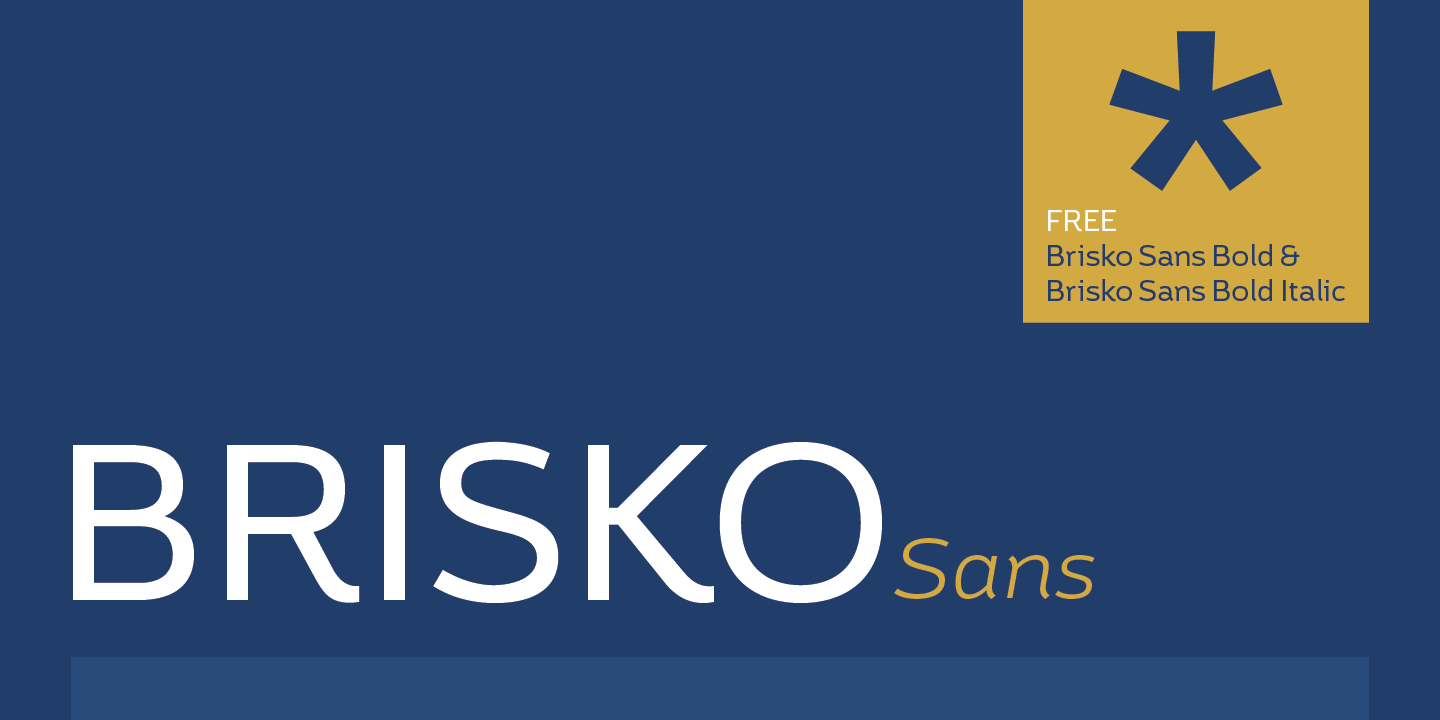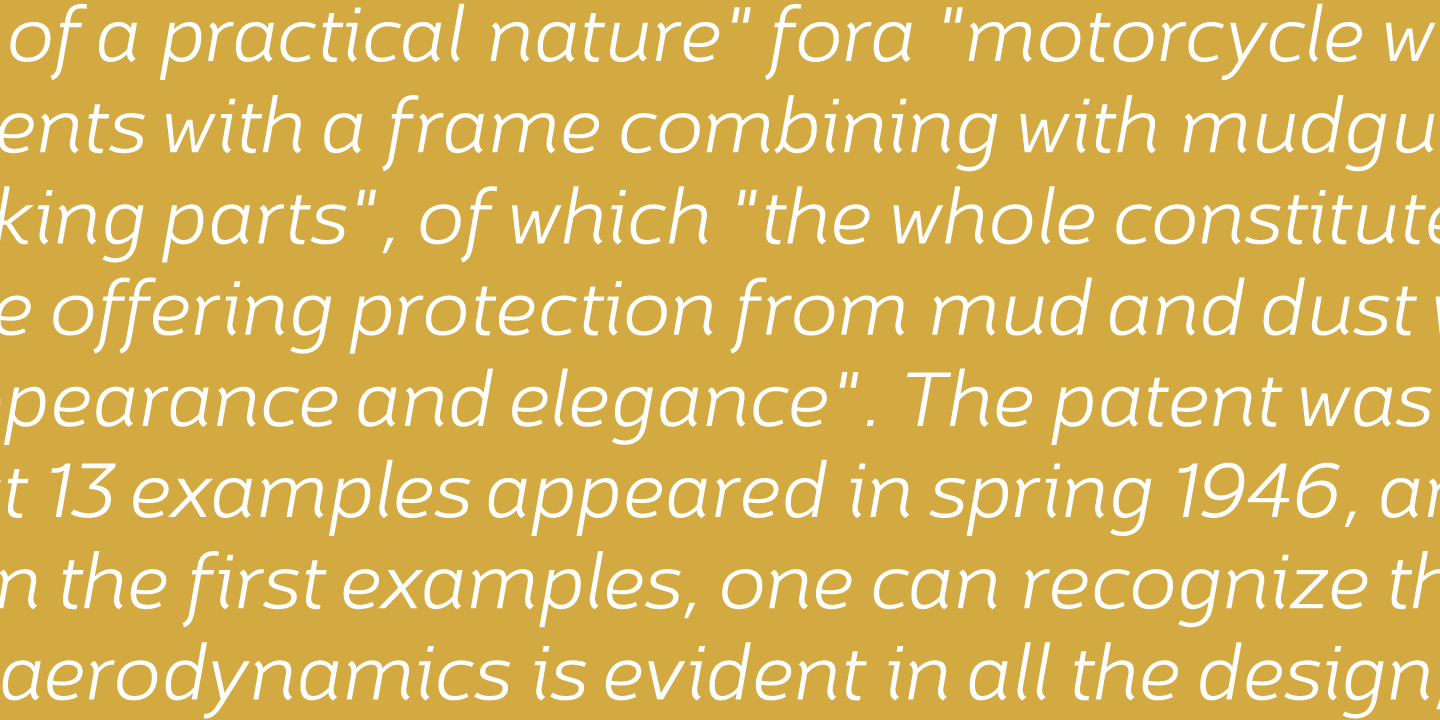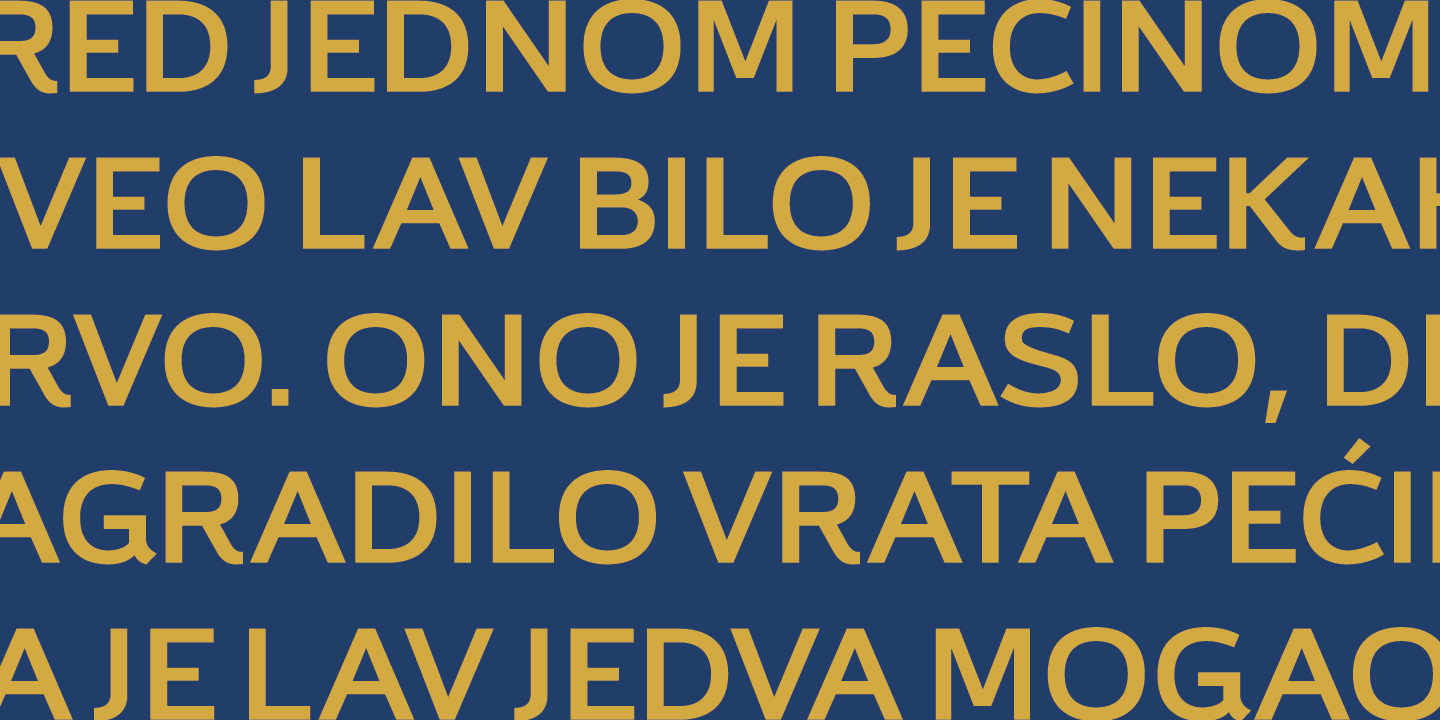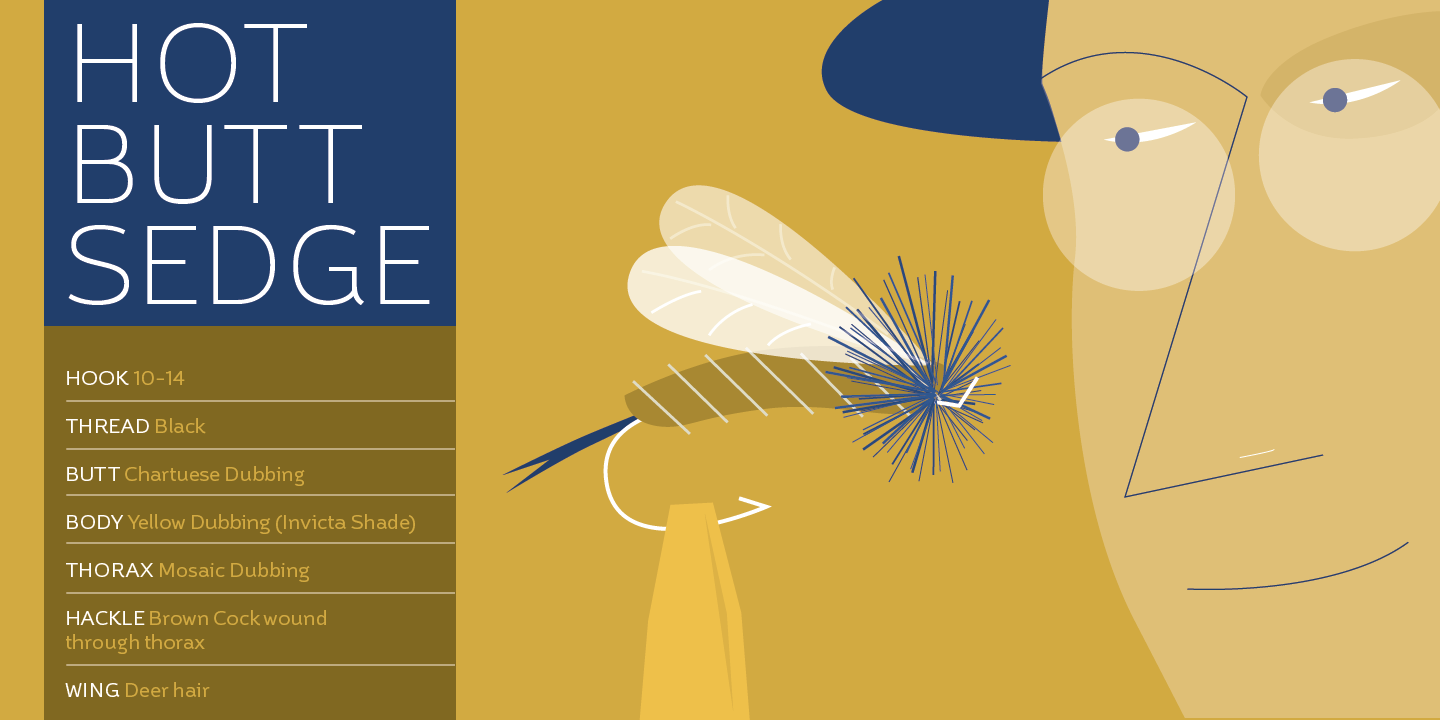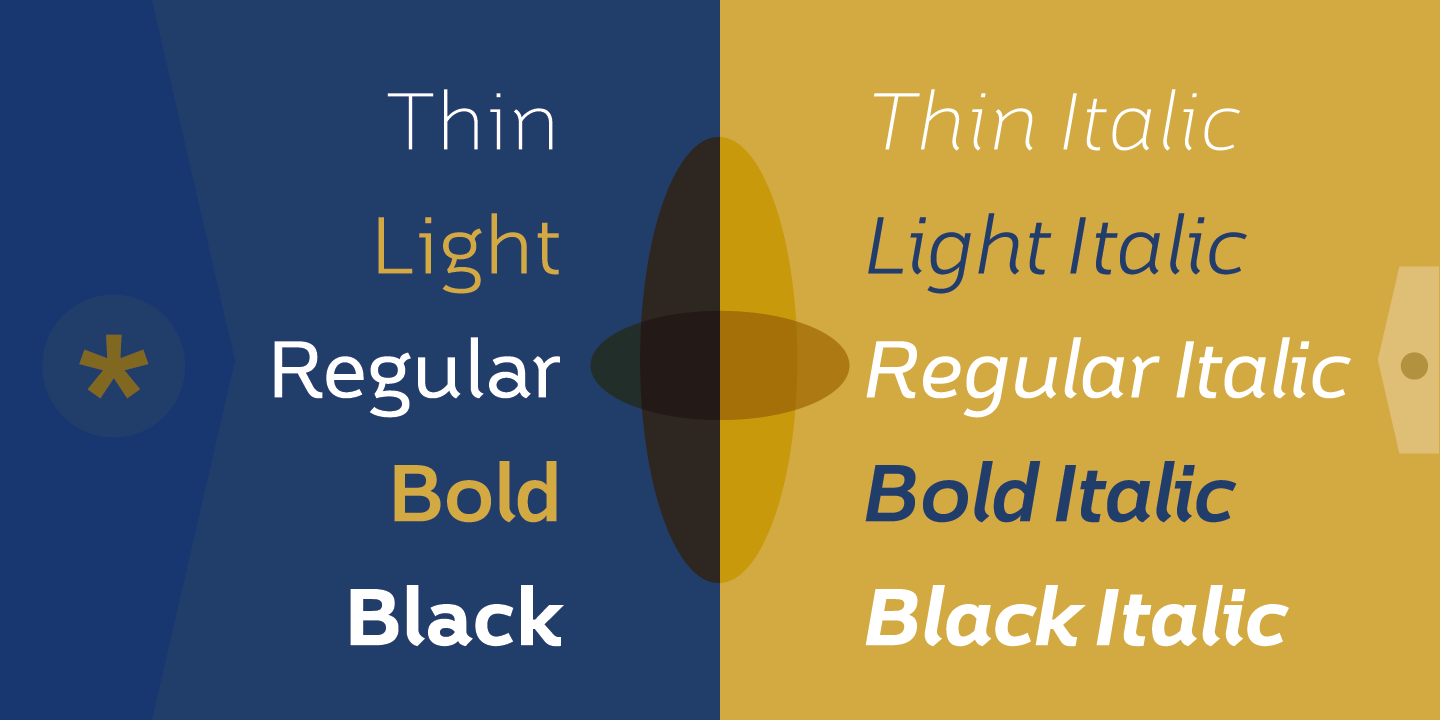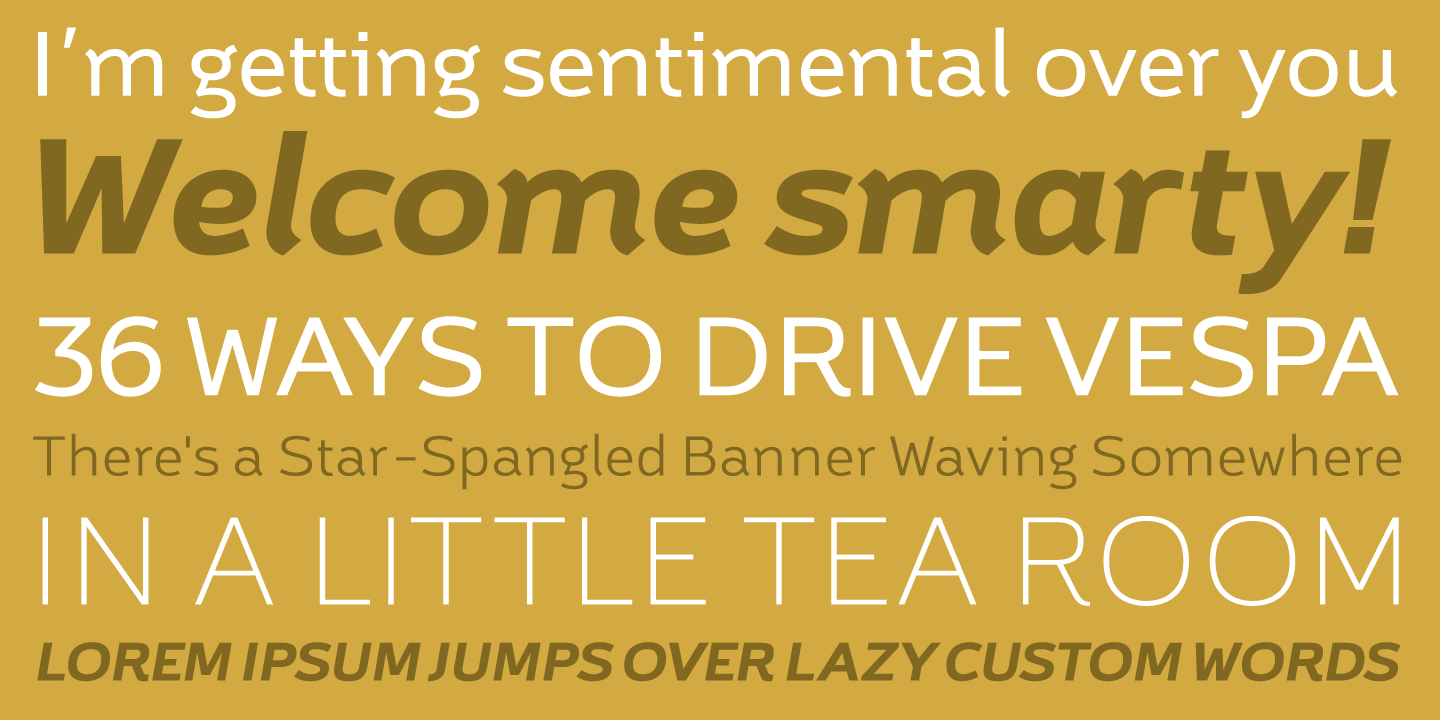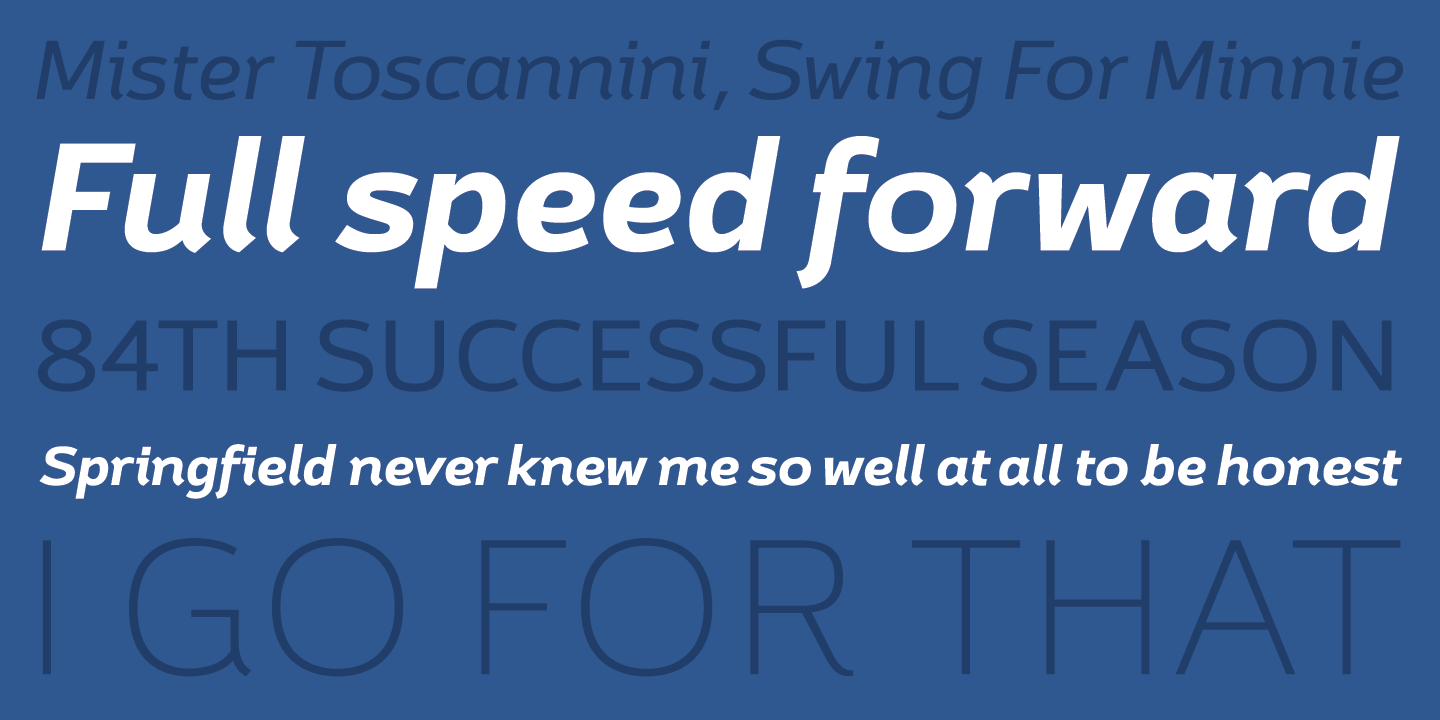
Brisko Sans is a simple sans serif font family that comes in 5 weights with matching italics. It is suitable for longer texts, while all weights are good for any other typographic use. The whole font family contains characterful elements to distinguish it from the old standards. Brisko Sans is a fully applicable, legible and discrete font family with unique attributes. It is a good recommendation for different kinds of web and print projects.